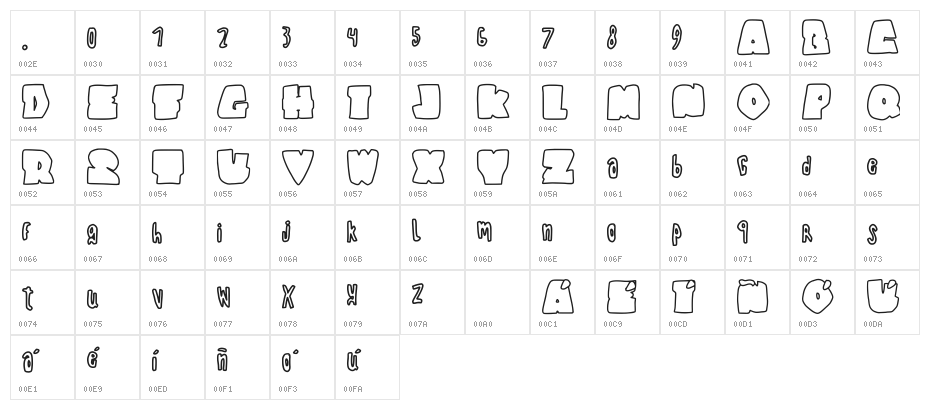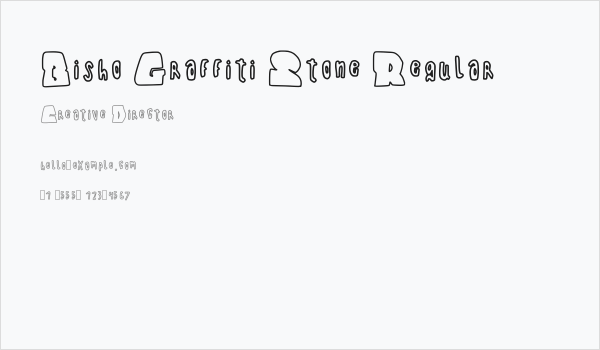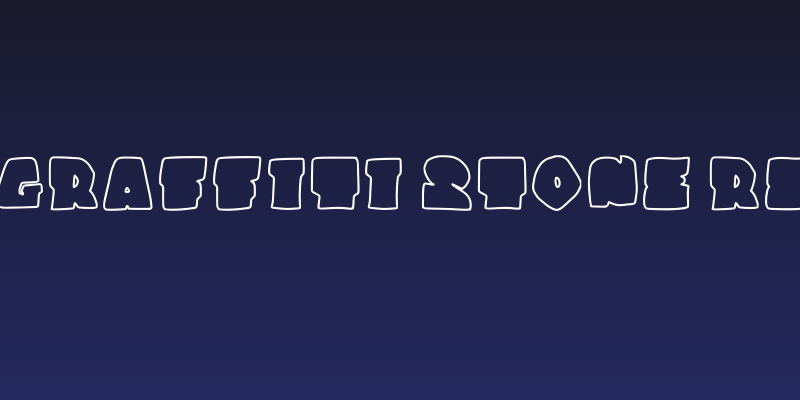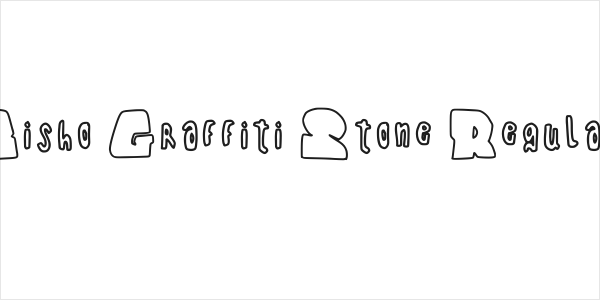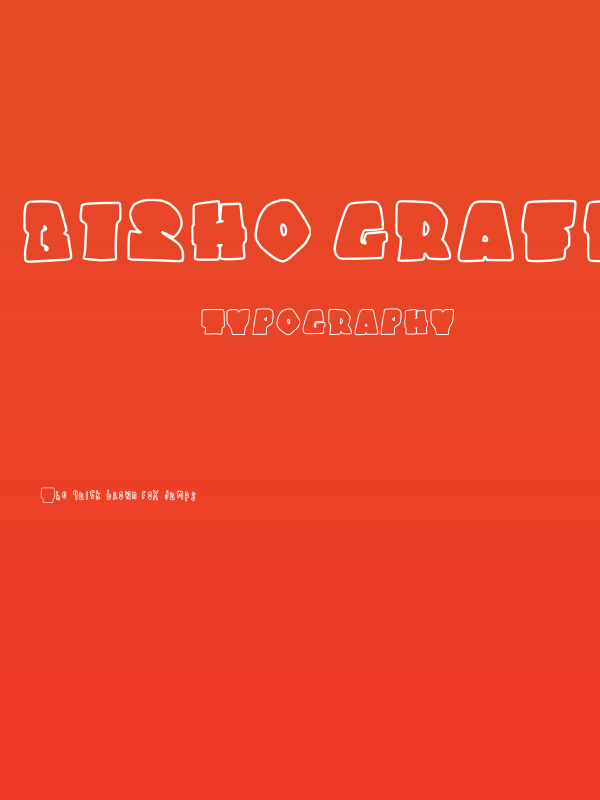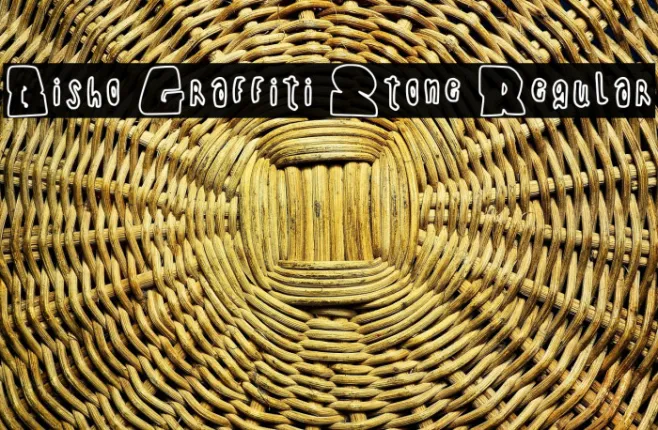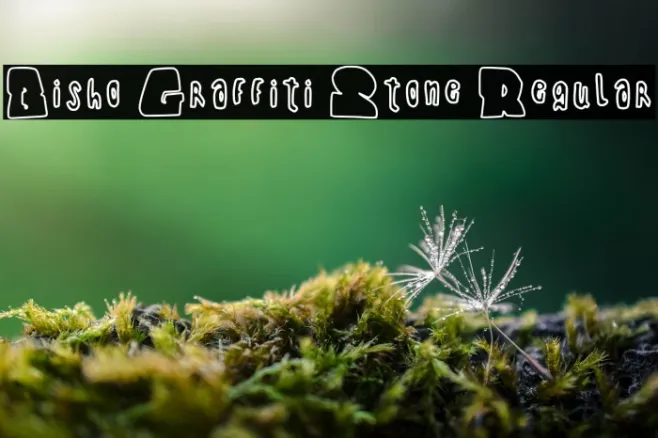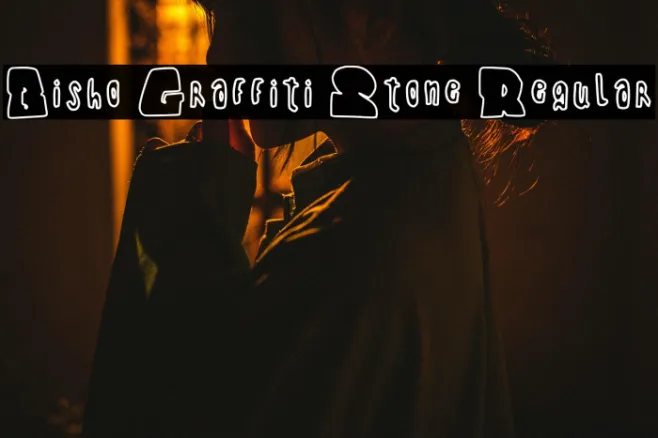
Bisho Graffiti Stone Regular Font
Bisho Graffiti Stone Regular Description
This font features a bold, playful style reminiscent of graffiti art. The characters are outlined with a thick, uneven stroke, giving them a hand-drawn appearance. The uppercase letters are blocky and robust, while the lowercase letters maintain a consistent, quirky style. Numbers and special characters follow the same playful aesthetic, making the font suitable for creative and informal designs. The overall look is dynamic and energetic, perfect for projects that require a youthful and artistic touch.
| Overall Style | Modern, Decorative |
| Proposed Projects | Ideal for street art-inspired designs, posters, album covers, and urban-themed branding. |